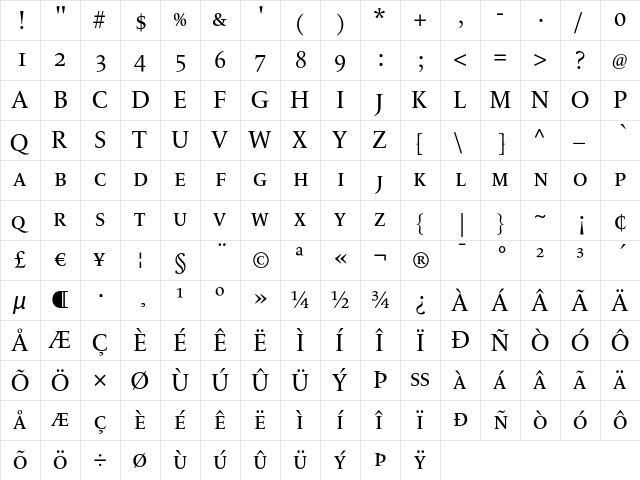
LeMondeLivre Normal Small Caps
Design Context for LeMondeLivre Typeface
LeMondeLivre is a composed and adaptable typeface that performs quietly and consistently across a wide range of design contexts.